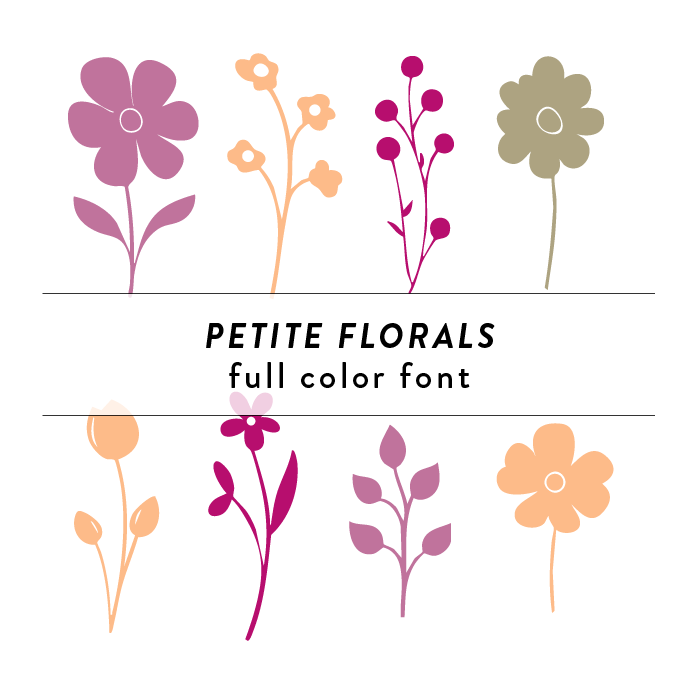
Petite Florals Full Color Font features delicate flower, tree, branch, and leaf designs. This craft font adds a whimsical and nature-inspired touch to any project. Perfect for invitations, stationery, and creative designs that need a touch of floral beauty. Petite Florals Full Color Font